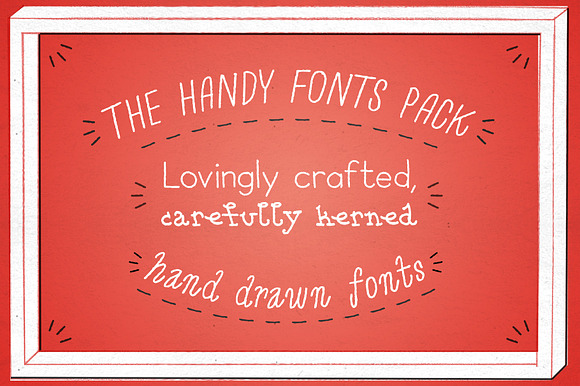
The Handy Fonts Pack
The Handy Fonts Pack is a collection of five lovingly-crafted hand drawn fonts for you to use in your designs & products.
- Bookplate Regular
- Comet Sans Regular
- Gift Tag Caps Regular
- Osbourne Regular
- Schoolbook Sans Regular